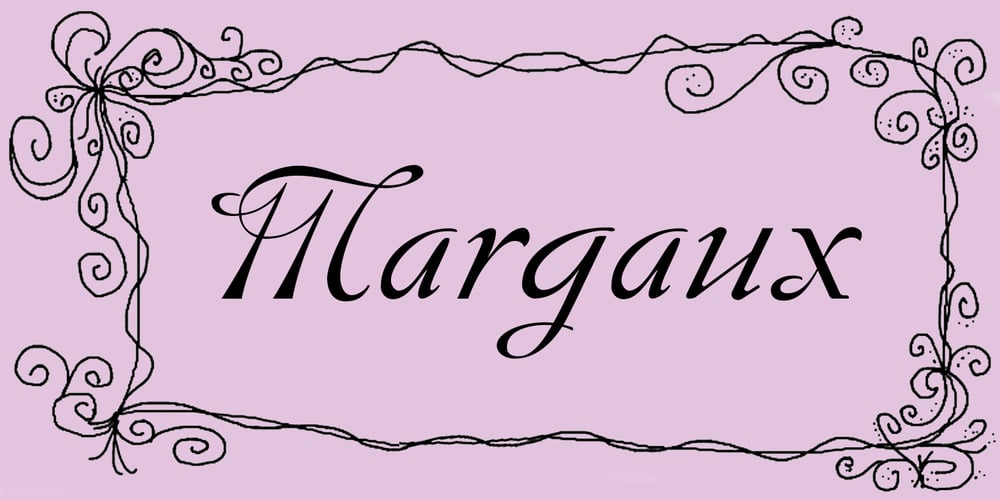
Margaux
Margaux font
Margaux Font Family was designed by Anton Scholtz and published by Scholtz Fonts. Margaux contains 1 styles and family package options. Margaux is an elegant, smooth, disciplined italic font, based on French fonts of the early 20th century. It evokes Paris in her heyday – culture, romance, and sophistication. Margaux is beautifully crafted, with simple, neat lower case characters, and upper case characters that are elegant but decoratively curled. This font lends itself to the creation of romantic adverts, wedding stationery, greeting cards, theatre posters, romantic book covers, certificates. Margaux has all the features usually included in a fully professional font. Language support includes all European character sets.